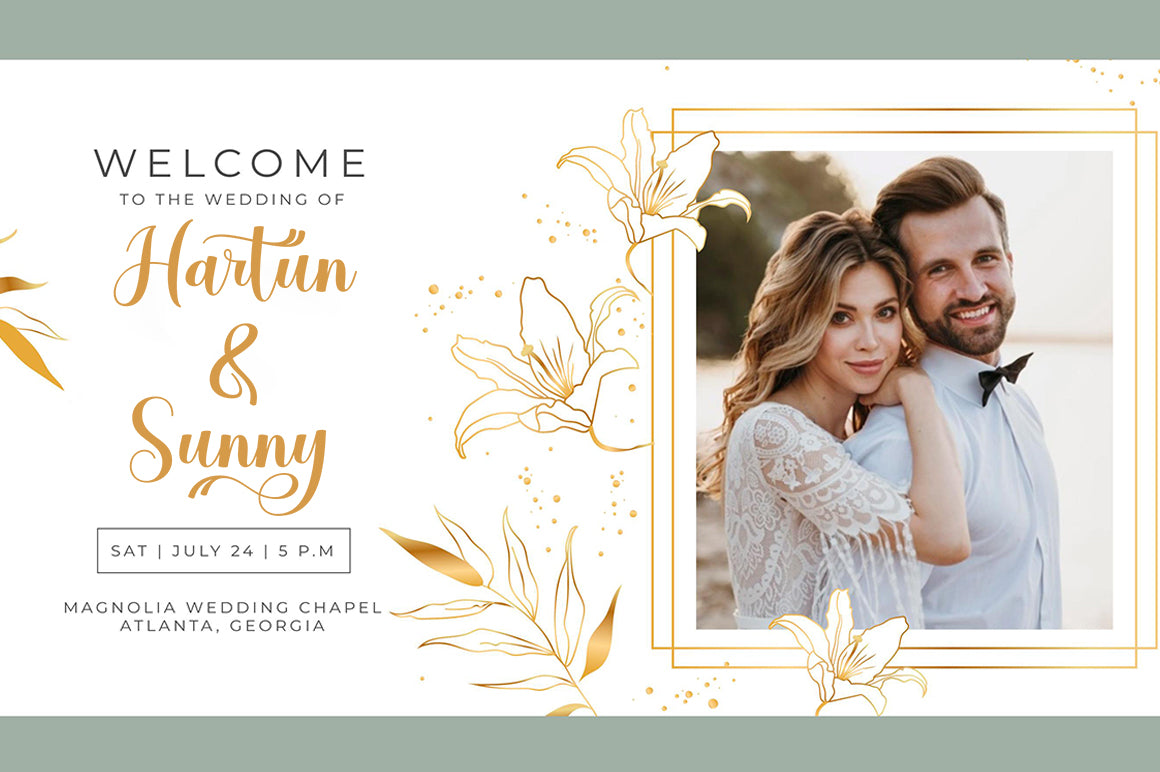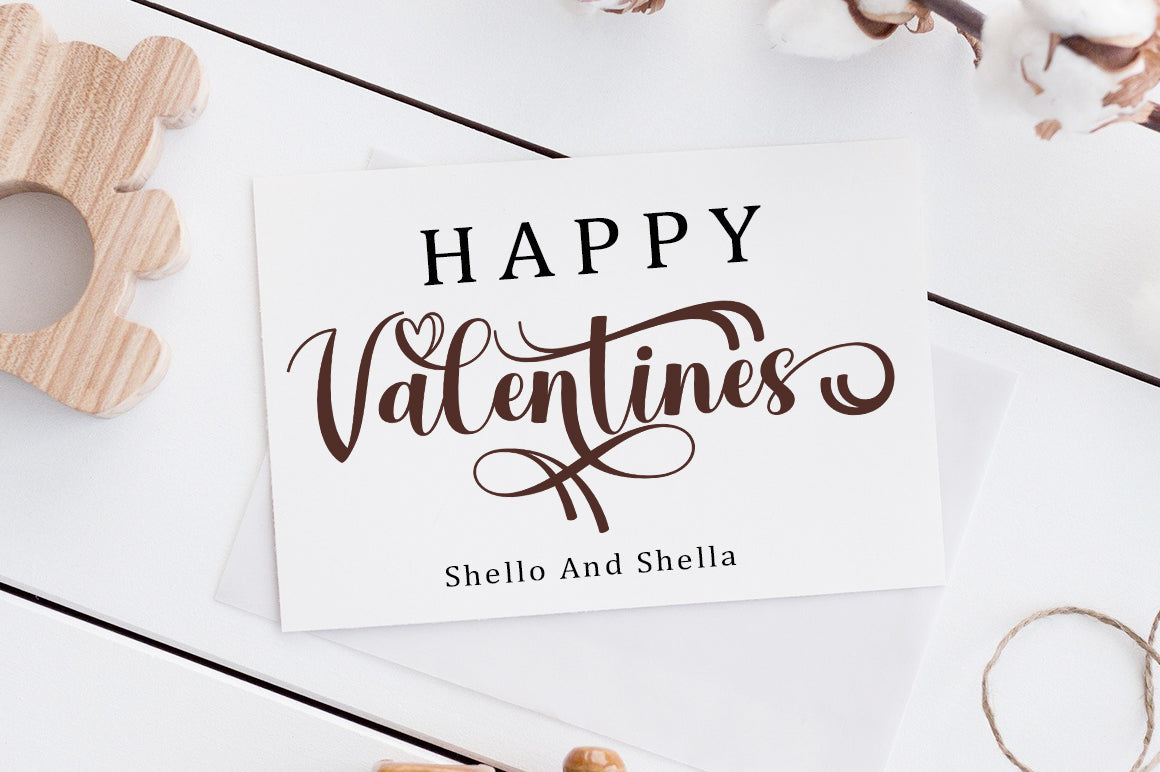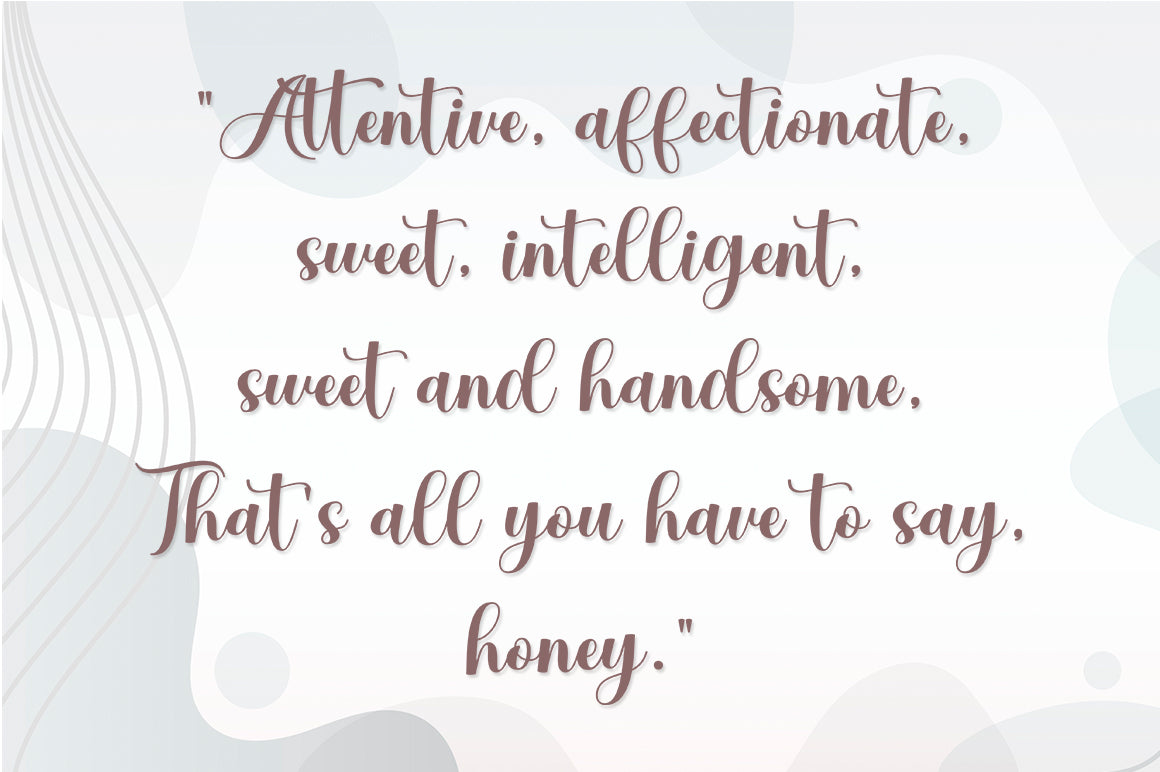
About Stay Authentic
Introducing Stay Authentic fresh & modern new scripts with handcrafted calligraphy styles, decorative characters and dancing baselines! Very pretty on invitations such as greeting cards, branding materials, business cards, quotes, posters and more!! Stay Authentic comes with 379 glyphs. Alternative characters are divided into several Open Type features such as Swash, Stylistic Sets, Stylistic Alternates, Contextual Alternates. The Open Type feature can be accessed using Open Type savvy programs such as Adobe Illustrator, Adobe InDesign, Adobe Photoshop version of Corel Draw X, and Microsoft Word. And this Font has provided PUA unicode (custom coded font). so that all alternative characters can be easily accessed in full by a craftsman or designer. Stay Authentic: Uppercase & Lowercase Letters International Languages ​​& Symbols Support Punctuation & PUA Numbers Unicode Range Standard Stylistic Alternates Stylistic Set 1-12 Contextual Character Variants. The ZIP files include the following: Stay Authentic.OTF Stay Authentic.TTF If you don’t have a program that supports OpenType features such as Adobe Illustrator and CorelDraw X Versions, you can access all the alternative glyphs using Font Book (Mac) or Character Map (Windows). Thanks and happy designing 🙂 Thank you for buying!